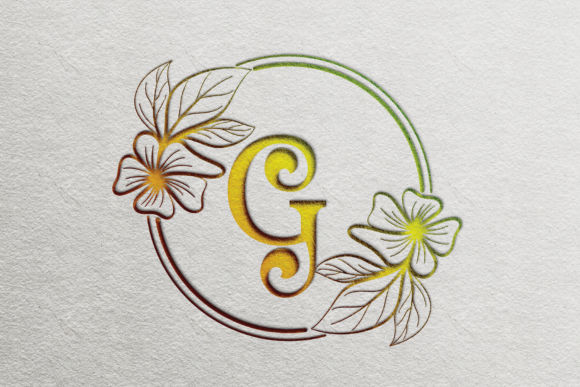
In a world where words dance and take flight, where elegance and charm intertwine, there exists a font of exquisite beauty, a masterpiece that captivates the senses – Glossy Monogram. Crafted with the utmost care and precision, Glossy Monogram is a decorative font that will elevate your projects to new heights of sophistication.
Picture this: a wedding invitation adorned with the flowing, graceful strokes of Glossy Monogram. The letters, like delicate brushstrokes, paint a portrait of love and joy, inviting guests to a celebration that promises to be unforgettable. Or, envision a social media post that leaps off the screen with eye-catching allure, its message enhanced by the distinctive charm of Glossy Monogram.
With Glossy Monogram, your stationary art will blossom into a symphony of elegance, each letter a work of art that whispers the story of your creativity. Let your imagination soar as you craft logos that exude professionalism and artistic flair, leaving a lasting impression on all who behold them.
Glossy Monogram is more than just a font; it's an experience, a journey into a realm of creativity. Its beauty is undeniable, its versatility unmatched. Whether you seek to create wedding invitations that radiate romance, social media posts that spark engagement, or branding materials that command attention, Glossy Monogram is your steadfast companion, guiding you towards design excellence.
In the realm of fonts, Glossy Monogram reigns supreme, a shining beacon of inspiration. Its delicate curves and flourishes evoke a sense of timeless elegance, while its versatility allows it to adapt seamlessly to any project, like a chameleon that dances across a spectrum of creative possibilities.
So, embrace the allure of Glossy Monogram and unlock a world of design possibilities. Each letter, a masterpiece in its own right, awaits your creative touch, ready to transform your projects into works of art. Let Glossy Monogram be your muse, your guiding light on the path to design brilliance.